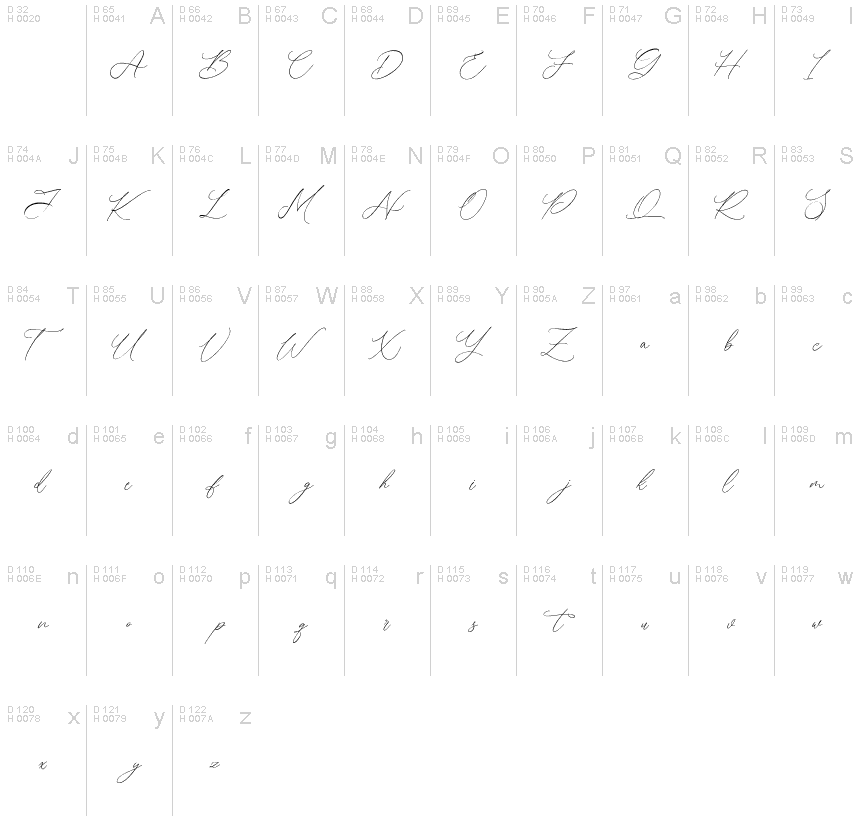
Norlandy Free Regular
Norlandy is an ultra-light handwritten font designed by Maulana Creative, perfect for projects that require a delicate and personalized touch. This font's unique style adds charm and personality to any design, making it ideal for wedding invitations, thank you cards, or any other project that requires a touch of elegance. The slender lines and intricate details of Norlandy make it an excellent choice for digital designs as well, including website headers or social media graphics. With Norlandy's distinct style and ultra-light weight, your designs are sure to stand out from the crowd.